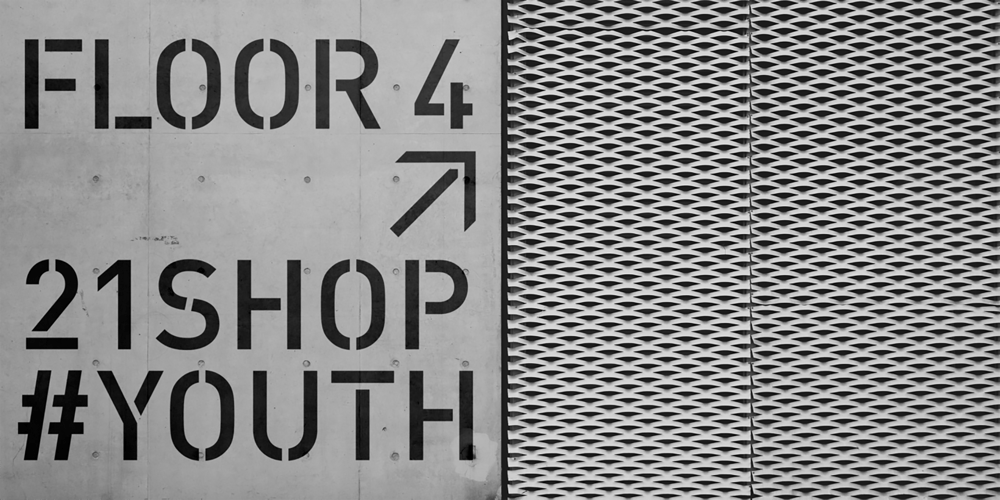
FF DIN Stencil Font Family was designed by Achaz Reuss, Albert-Jan Pool, Antonia Cornelius and published by FontFont. FF DIN Stencil contains 14 styles and family package options. FF DIN: the famous, faithful and first revival of DIN 1451. FF DIN originates in the lettering models from the German standard DIN 1451, and is considered the perfect standard typeface due to the methodical and engineered nature of its design. The FF DIN family breathes an atmosphere of versatility and authority, FF DIN Stencil follows the same design principles with extra flair. The bridges are arranged vertically, which usually replaces the thinnest parts of the strokes — offering depth in your headlines. Go loud and scale up, as the weights get heavier, the width of the bridges skillfully expand and contract, enabling FF DIN Stencil to provide confidence in volume, and in any chosen style.Also made available as a Variable font, creatives can design hyper specific variations to thrive in any design space, and even to animate movement from one state to the next. Get innovative with the entire FF DIN family, FF DIN Stencil’s spacing and kerning is identical to FF DIN, this enables swapping between any FF DIN font without changes in word length or line breaks. For true FF DIN fans, FF DIN Slab and FF DIN Stencil designed by Albert-Jan Pool, Antonia Cornelius and Achaz Reuss, can be seen as harmonious companions to the FF DIN family, rather than alternatives. Bestowed with its parents distinctive DNA, all the FF DIN extensions open up new possibility with their own unique qualities, but stay true to the FF DIN design philosophy of engineered precision.